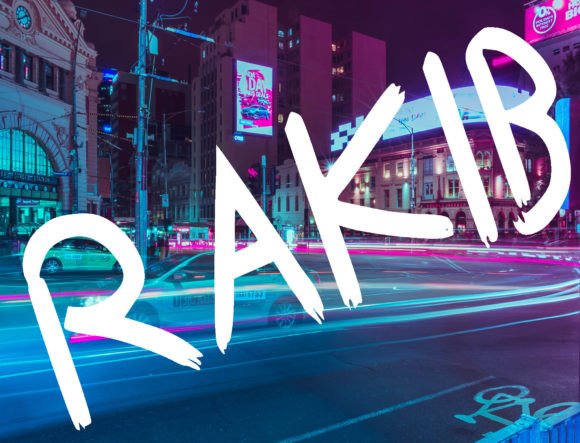
Embrace the allure of Rakib, a captivating script font that intertwines artistic flair with modern elegance. Its graceful strokes evoke the charm of swift brushstrokes, inviting you to craft captivating designs that speak volumes.
Immerse yourself in the world of Rakib, where creativity knows no bounds. Whether you're a seasoned designer or a budding enthusiast, this font is your perfect companion. Let its timeless appeal enhance your projects, from whimsical invitations to eye-catching headlines.
Unleash the boundless potential of Rakib's versatility. Its adaptability shines through, gracing both digital and physical creations with equal finesse. With Rakib, your designs will captivate audiences across a myriad of mediums, leaving a lasting impression that transcends time.
Indulge in the joy of self-expression with Rakib as your trusted font. Its enchanting presence will effortlessly elevate your creations, transforming them into masterpieces that resonate with your unique style. Let Rakib be the spark that ignites your imagination, empowering you to weave tales through the art of typography.
Don't settle for ordinary fonts. Embrace the extraordinary with Rakib, where beauty meets functionality. Its seamless flow and undeniable charm will leave you reaching for it time and time again, becoming an indispensable tool in your creative arsenal.
Join the growing legion of font enthusiasts who have discovered the magic of Rakib. Let its allure captivate your designs, allowing you to create works of art that transcend the boundaries of imagination. Embrace Rakib today and embark on a typographic journey like no other!